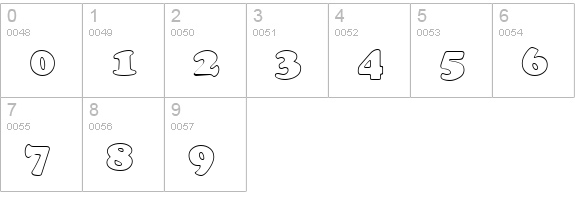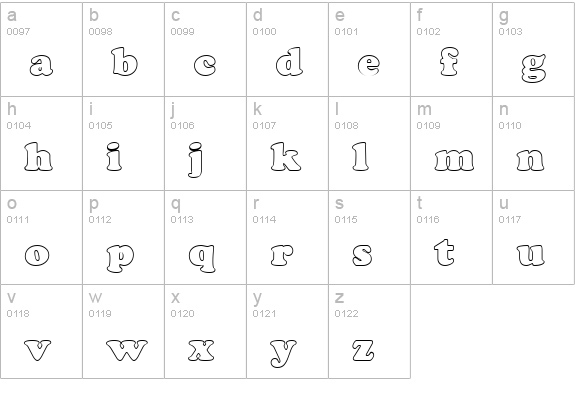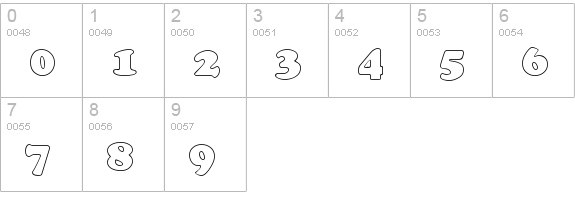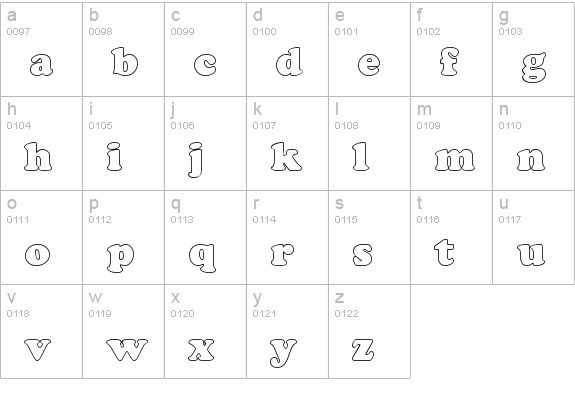
Cookie Hollow font is a charming and whimsical typeface that brings a touch of playfulness to any design project. With its unique hollow style, this font is perfect for adding a fun and lighthearted feel to your creations. Whether you're working on invitations, posters, or social media graphics, Cookie Hollow is sure to make your text stand out. The best part? Cookie Hollow font is completely free to download at FontsMarket.com, making it easily accessible for all your design needs. Embrace the cheerful and quirky vibes of Cookie Hollow font and add a delightful touch to your projects today!